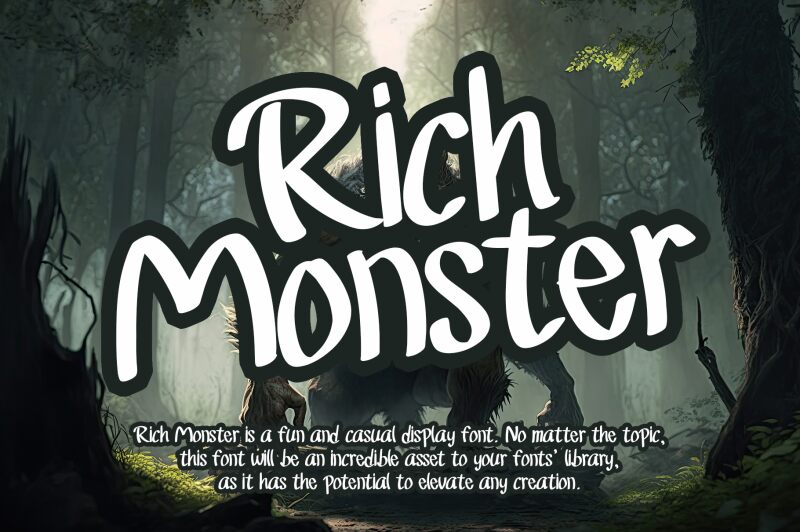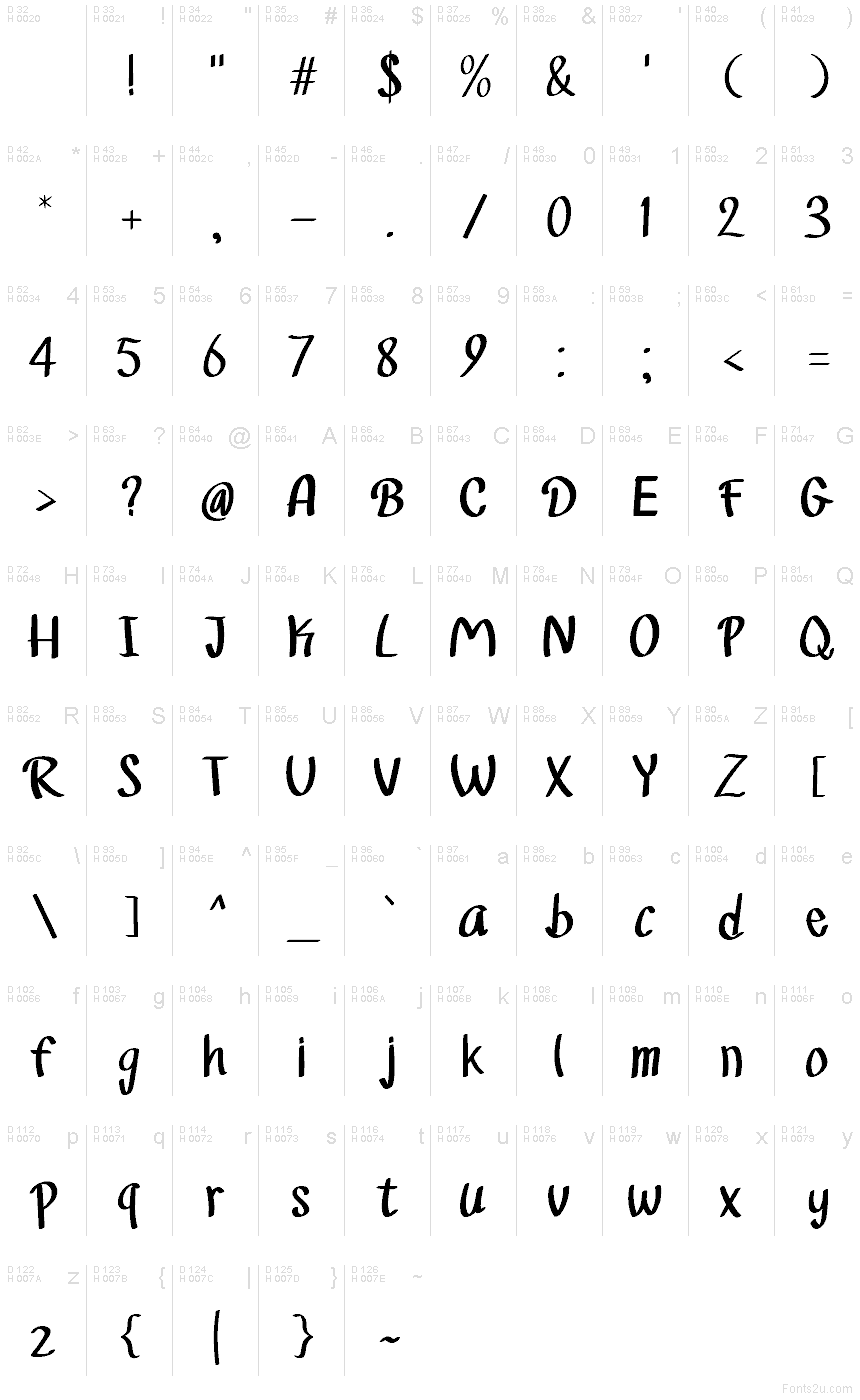
Rich Monster font by Letterafa Studio is a free handwritten typeface that bundles cute and creepy into the same inky strokes. Its tall, bouncy letters, rounded curves, and slightly irregular rhythm feel like they were painted with a thick marker on a glossy poster, giving every word a playful, mischievous edge. There’s a hint of Halloween fun without turning fully scary, so it keeps things friendly while still standing out.
Using Rich Monster, this free font really shines on kids’ book covers, Halloween party invitations, playful logos, candy or snack packaging, stickers, and bold social media graphics. The generous spacing and chunky forms hold their shape at large sizes, making headlines loud and easy to read. For longer text, pair Rich Monster with a clean sans serif in a lighter weight to keep the message clear while letting the hand-drawn title steal the spotlight.